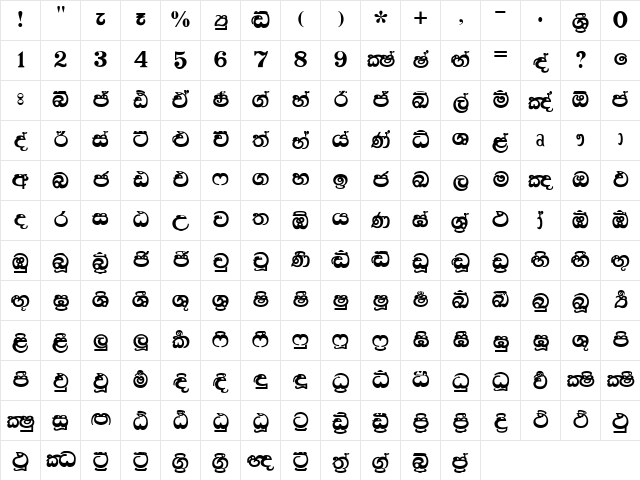
aKandyNewSupplement Regular
Design Context for aKandyNewSupplement Typeface
aKandyNewSupplement takes a measured approach to typography — its balanced proportions and neutral character make it a reliable workhorse for both digital and print work.